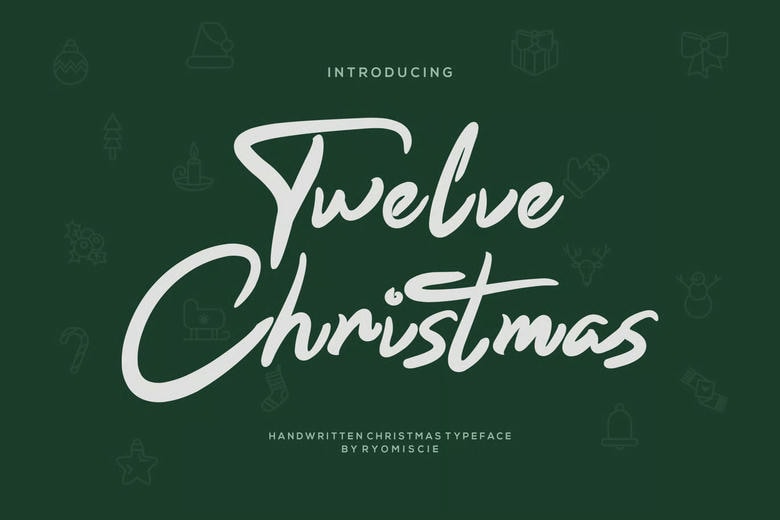
Twelve Christmas Font
Twelve Christmas Handwritten Font- Modern Font is a bold and real display font. The typeface will fit any branding initiative such as logo, esport and countless other applications. superior in a very broad context.
Twelve Christmas Handwritten Font